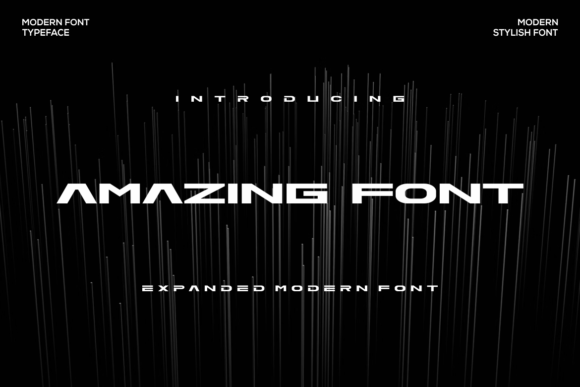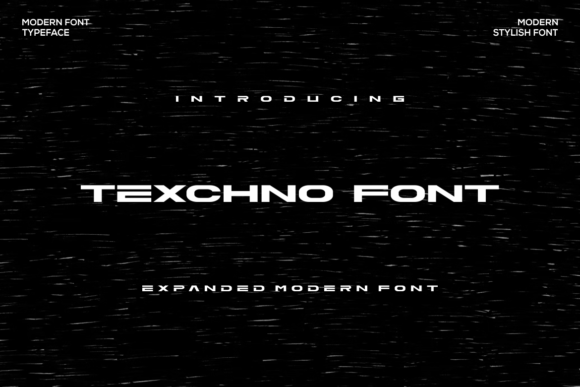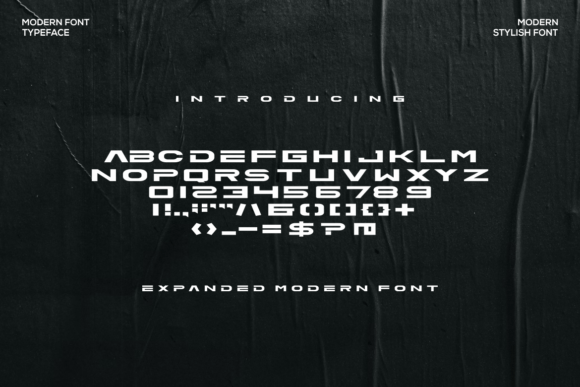
Introducing Abslop Font: The Modern Display Font for Creative Projects
In the world of design, fonts play a crucial role in conveying messages, expressing emotions, and creating visual identities. For designers, crafters, and entrepreneurs, finding the perfect font can be a daunting task. That’s why we’re excited to introduce Abslop Font, a bold and authentic display font that’s perfect for a variety of creative projects.
What is Abslop Font?
Abslop Font is a modern display font designed to make a statement. Its unique and bold style makes it ideal for branding projects, logos, t-shirt printing, and creative products. This font is extraordinary in a variety of contexts, from advertising and marketing materials to packaging and digital media.
Key Features of Abslop Font
- Bold and Authentic Style: Abslop Font boasts a bold and authentic style that’s sure to grab attention.
- Versatile: This font is perfect for a wide range of creative projects, from logos and branding to t-shirt printing and digital media.
- Easy to Read: Despite its bold style, Abslop Font is easy to read, making it perfect for headlines, titles, and short texts.
- High-Quality: Our font is designed with high-quality and crisp lines, ensuring it looks great in any size or resolution.
Use Cases for Abslop Font
Abslop Font is an incredibly versatile font that can be used in a variety of creative projects, including:
- Logo Design: Create a bold and memorable logo for your brand with Abslop Font.
- T-Shirt Printing: Design eye-catching t-shirts with Abslop Font that’s sure to turn heads.
- Branding and Advertising: Use Abslop Font in your branding and advertising materials to create a consistent visual identity.
- Digital Media: Use Abslop Font in your digital media, such as social media graphics, blog posts, and website headers.
- Packaging Design: Create stunning packaging designs with Abslop Font that stands out on store shelves.
Why Choose Abslop Font?
With so many fonts available, why choose Abslop Font? Here are just a few reasons:
- Unique Style: Abslop Font has a unique and bold style that’s sure to make your designs stand out.
- High-Quality: Abslop Font is designed with high-quality and crisp lines, ensuring it looks great in any size or resolution.
In conclusion, Abslop Font is a modern display font that’s perfect for creative projects. Its bold and authentic style makes it ideal for branding, logos, t-shirt printing, and digital media. With its versatility, ease of use, and high-quality design, Abslop Font is a must-have for designers and crafters. Try it out today and take your designs to the next level!